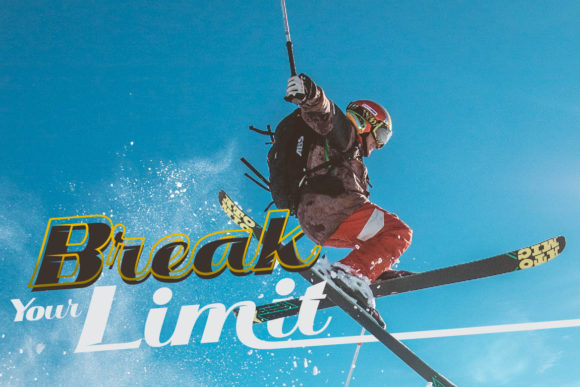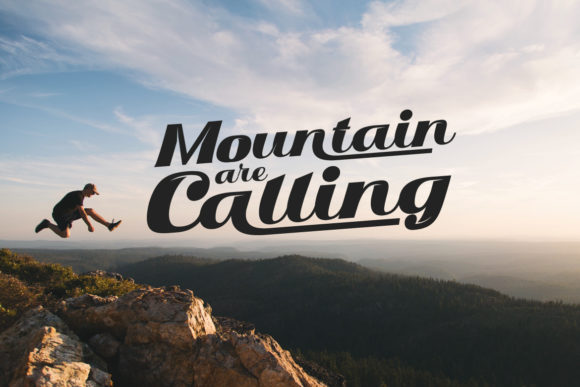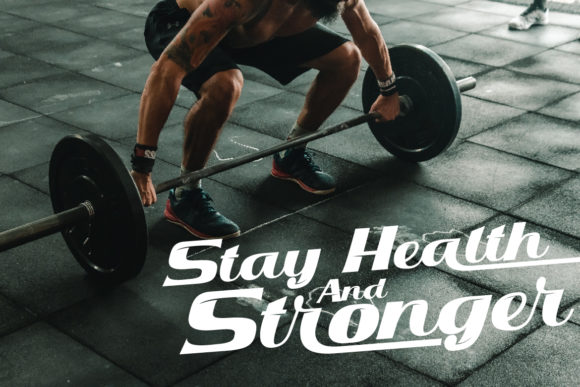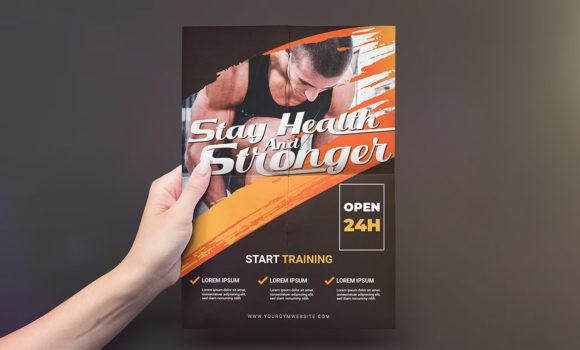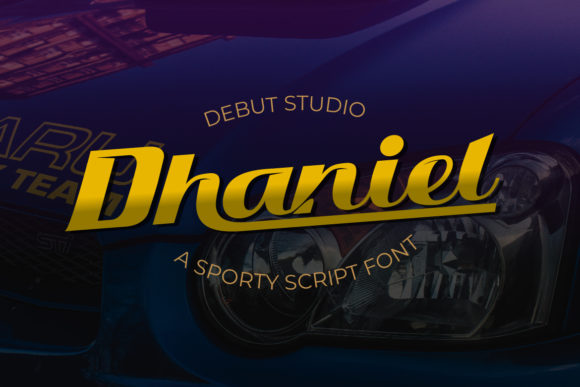
Dhaniel Font: The Ultimate Choice for Sports, Gaming, and Adventure Designs
In the world of typography, fonts play a crucial role in conveying the tone and personality of a brand or design project. For designers and crafters working on sports, gaming, or adventure-related projects, finding the right font can be a daunting task. That’s where Dhaniel Font comes in – a sporty and dynamic display font that brings a modern vibe to the table. In this article, we’ll dive into the features, benefits, and uses of Dhaniel Font, and explore why it’s the perfect choice for your next design project.
What is Dhaniel Font?
Dhaniel Font is a modern display font designed to capture the essence of sports, gaming, and adventure. Its sleek lines, bold structure, and energetic feel make it an ideal choice for headlines, titles, and promotional materials. The font’s creator aimed to craft a typography that not only stands out but also communicates a sense of dynamism and movement.
Key Features of Dhaniel Font
- Sporty and Dynamic: Dhaniel Font boasts a sporty and dynamic look, perfect for designs that require a bold and energetic feel.
- Modern Vibe: The font’s modern design ensures it fits seamlessly into contemporary design trends, making it versatile for various applications.
- Display Font: As a display font, Dhaniel is optimized for large-size usage, making it perfect for headlines, titles, and promotional materials.
- Legibility: Despite its bold and dynamic nature, Dhaniel Font maintains high legibility, ensuring your message is conveyed clearly.
Benefits of Using Dhaniel Font
So, why choose Dhaniel Font for your sports, gaming, or adventure design projects? Here are some benefits that make it a top pick:
- Instant Recognition: Dhaniel Font’s unique design ensures instant recognition, grabbing the audience’s attention and setting your brand or project apart.
- Versatility: The font’s modern and sporty vibe makes it adaptable to various design applications, from logos and branding to posters and digital media.
- Time-Saving: With Dhaniel Font, you can save time and effort in finding and experimenting with different fonts, ensuring your design process is efficient and streamlined.
- Professional Look: The font’s high-quality design gives your projects a professional and polished look, elevating your brand’s image.
Use Cases for Dhaniel Font
Dhaniel Font’s versatility makes it suitable for a wide range of design projects, including:
- Sports Branding: Logos, jerseys, and promotional materials for sports teams, clubs, or events.
- Gaming: Titles, logos, and in-game assets for video games, esports, or gaming communities.
- Adventure and Outdoor: Branding, posters, and marketing materials for outdoor gear, travel, or adventure companies.
- Digital Media: Social media graphics, YouTube thumbnails, or blog headers that require a bold and attention-grabbing font.
Tips for Using Dhaniel Font Effectively
To get the most out of Dhaniel Font, consider the following tips:
- Pair with Neutral Fonts: Combine Dhaniel Font with neutral fonts to create contrast and ensure readability.
- Experiment with Colors: Try different color schemes to find the perfect match for your brand or project’s visual identity.
- Adjust Font Size: Experiment with font sizes to achieve the desired impact, from bold headlines to smaller captions.
Dhaniel Font is a powerful tool for designers and crafters working on sports, gaming, or adventure design projects. Its sporty and dynamic design, modern vibe, and versatility make it an excellent choice for creating attention-grabbing and professional-looking designs. By incorporating Dhaniel Font into your design workflow, you’ll be able to create stunning visuals that capture the essence of your brand or project. So, what are you waiting for? Give Dhaniel Font a try and take your designs to the next level!